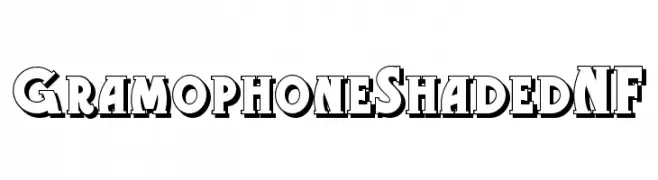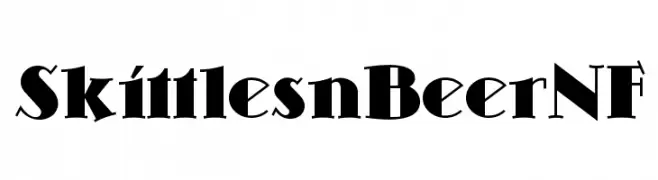
• BlitzkriegNF
A bold, angular font with geometric shapes and dynamic style.
• PossumSaltareNF
A hand-drawn, medieval-inspired font with sharp serifs and artistic flair.
• Burger Doodle NF
A bold, geometric font with a playful, stencil-like style.
• Burger Doodle NF Two
A bold, playful font with a 3D effect and geometric style.
• SpeedballNo1NF
A playful, geometric font with rounded letterforms and a modern yet vintage appeal.
• GramophoneShadedNF
A bold, decorative font with a retro, shaded 3D effect.
• SkittlesnBeerNF
A bold, high-contrast font with angular serifs and dynamic style.
• Sho-CardCapsNF
A bold, three-dimensional font with a vintage, shadowed style.
• BrownwoodNFShadow
A bold, shadowed decorative font with a three-dimensional effect.
• PasticheNF
A vibrant and eclectic display font with unique decorative elements in each character.